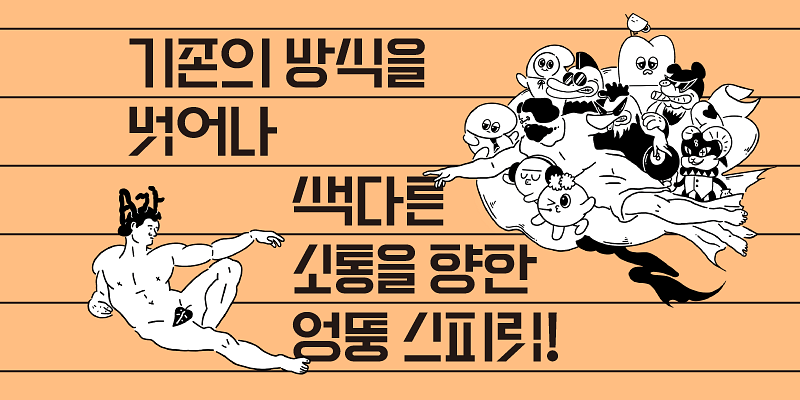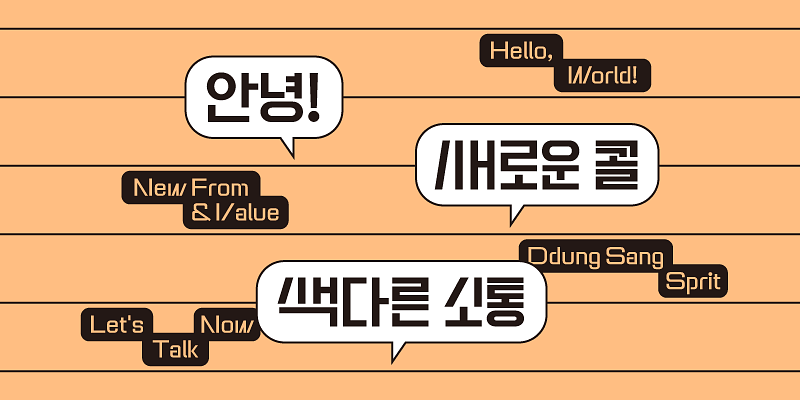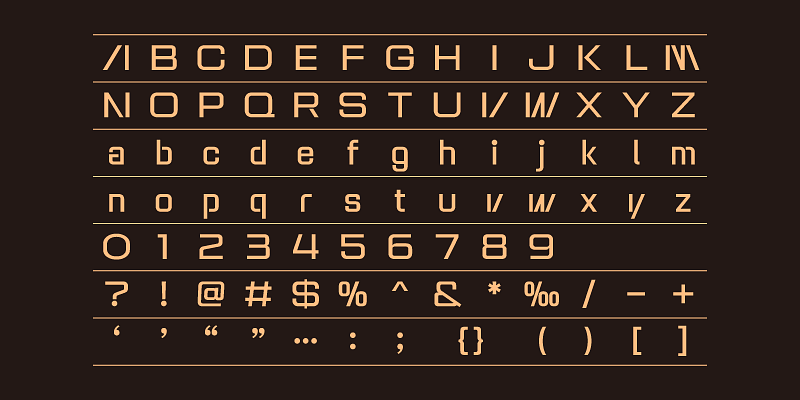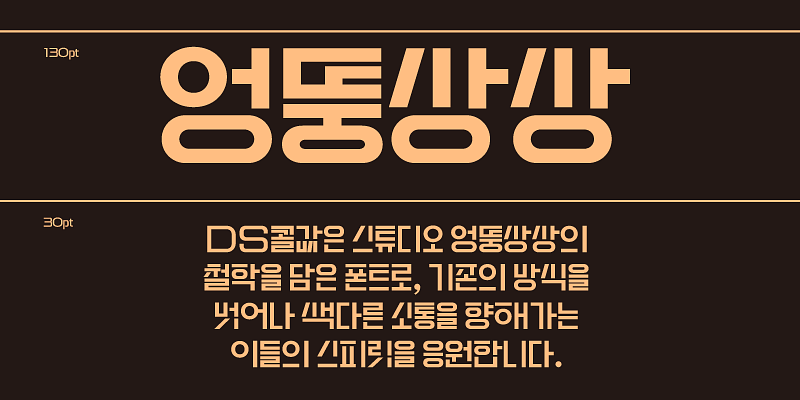
Ddungsang, the dynamic design studio under the umbrella of Yoondesign Group, has been on an expedition to discover innovative forms and values by challenging traditional letterforms. DS Ggorgap, a font that represents the studio’s ethos, expresses their audacious spirit to deviate from conventional communication methods. This font stands out because of its unique features - some strokes are missing, and it has unusual shapes in the two-letter sounds, or diphthongs. Despite these unique features, it’s still easy to read and looks good. Using DS Ggorgap is a strong choice that can add a unique touch to your work.